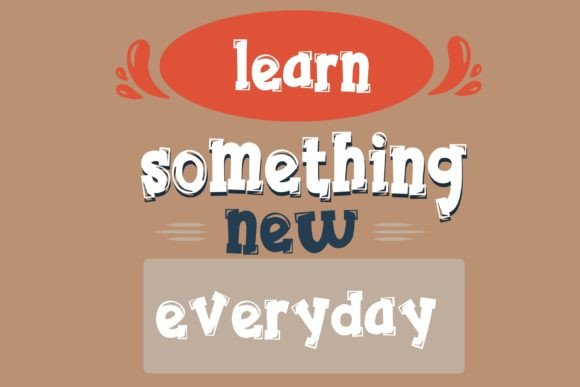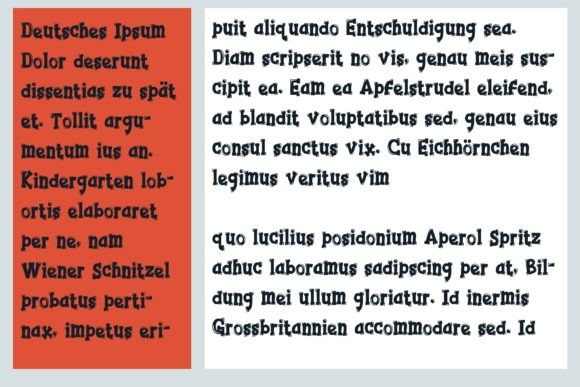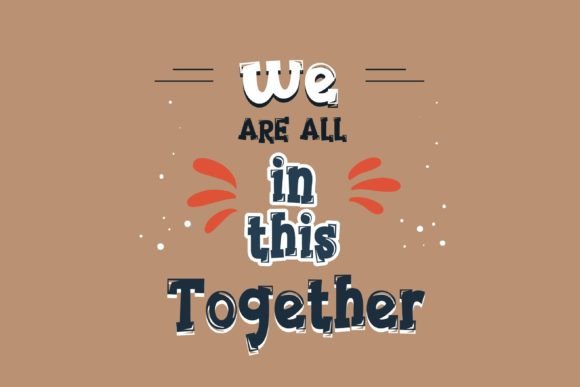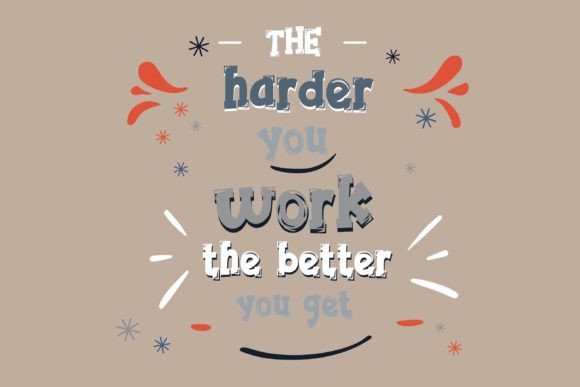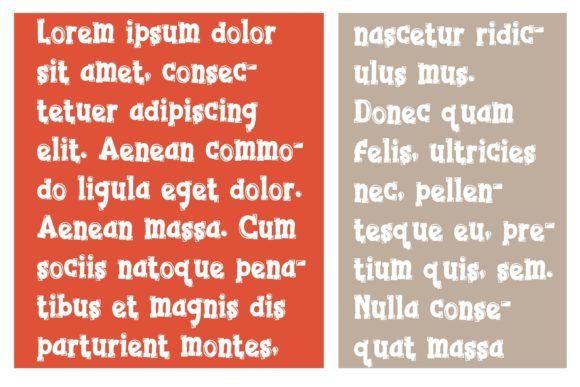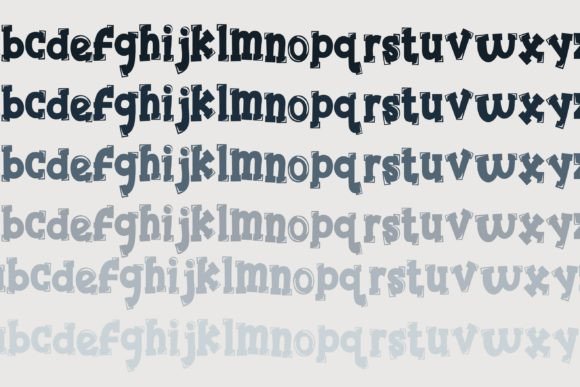
Introduction to Rusty Dad Font
As designers, we’ve all been there – staring at a blank canvas, struggling to find the perfect font to bring our creative project to life. And then, like a breath of fresh air, we stumble upon that one font that just makes everything click. For me, that font is the Rusty Dad Font – a bold, distinguished typeface that’s as rugged as it is refined.
With its large, chunky serifs and high-quality design, the Rusty Dad Font is the perfect addition to any creative project. Whether you’re working on a free download or a paid design, this font is sure to command attention and add a touch of vintage masculinity to your work. And the best part? It’s available for free, making it an invaluable resource for designers of all levels.
From transparent backgrounds to intricate designs, the Rusty Dad Font is a design resource that’s sure to inspire creativity and drive results. So why settle for a bland, generic font when you can have a high-quality, eye-catching typeface like the Rusty Dad Font?
Key Features of Rusty Dad Font
- Rusty Dad Font is a unique, high-quality design resource ideal for creative projects.
- Unique characteristics include a distressed, vintage aesthetic and a wide range of character sets.
- Perfect for adding a touch of nostalgia and character to any creative project, from logos to typography.
Honest Review: Rusty Dad Font
One thing that stands out about the Rusty Dad Font is its high quality. The design is detailed and well-executed, with a unique aesthetic that’s sure to add some character to any project. The transparent background is also a nice touch, allowing for easy placement over any image or color.
What doesn’t work well:
- Only available in a single weight
- No italics or bold variations
- Some characters may not be compatible with certain operating systems
⚠️ Despite these limitations, I would still recommend the Rusty Dad Font to designers working on a creative project. Overall, it’s a solid design resource that can add a lot of character to your work.
The Rusty Dad Font is perfect for creating designs for social media, branding, and marketing materials. Its unique and vintage style makes it ideal for creating eye-catching graphics and advertisements.